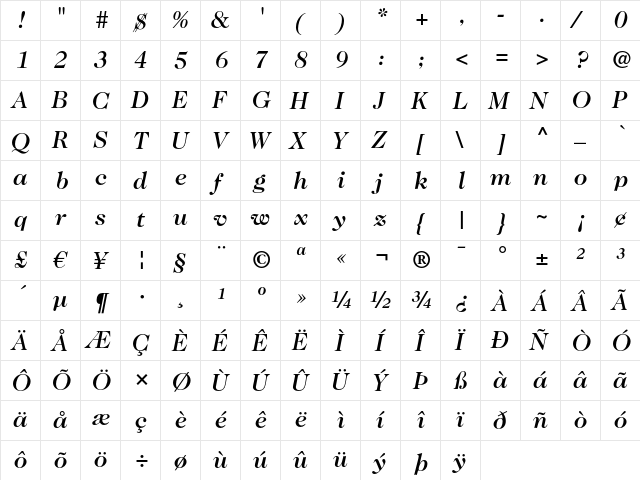
ITC Caslon 224 LT Medium Italic
Design Context for ITC Caslon 224 LT Typeface
ITC Caslon 224 LT takes a measured approach to typography — its balanced proportions and neutral character make it a reliable workhorse for both digital and print work. The slanted form adds forward momentum and visual energy. The delicate stroke weight brings airiness and refinement to layouts.
Pro Tip: Use ITC Caslon 224 LT for emphasis, pull quotes, and subheadings where its slanted energy can add rhythm to the layout.